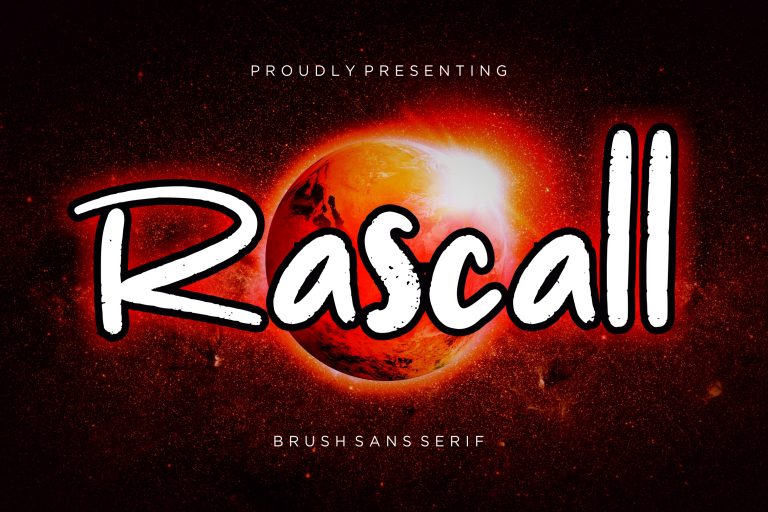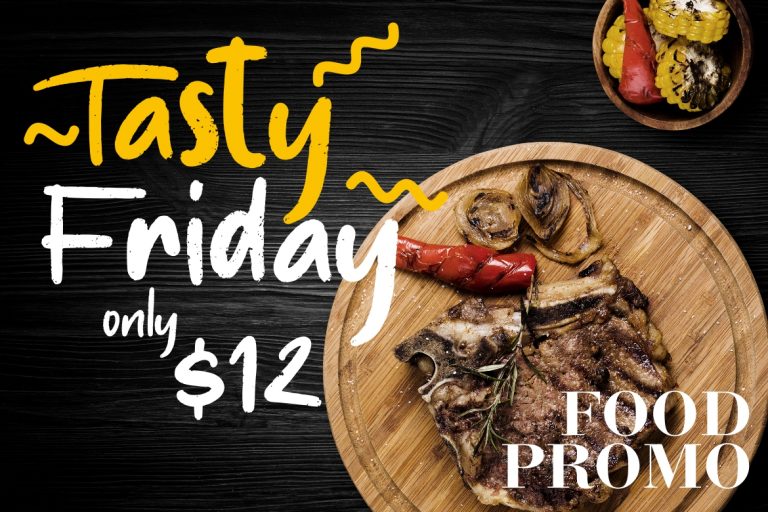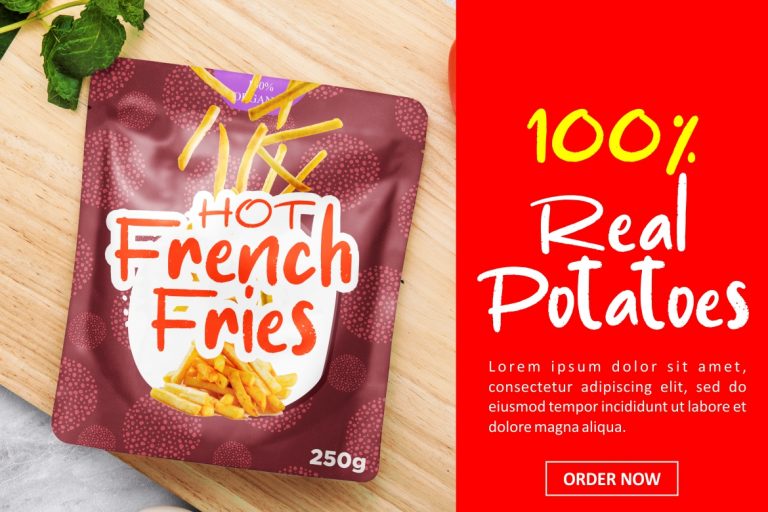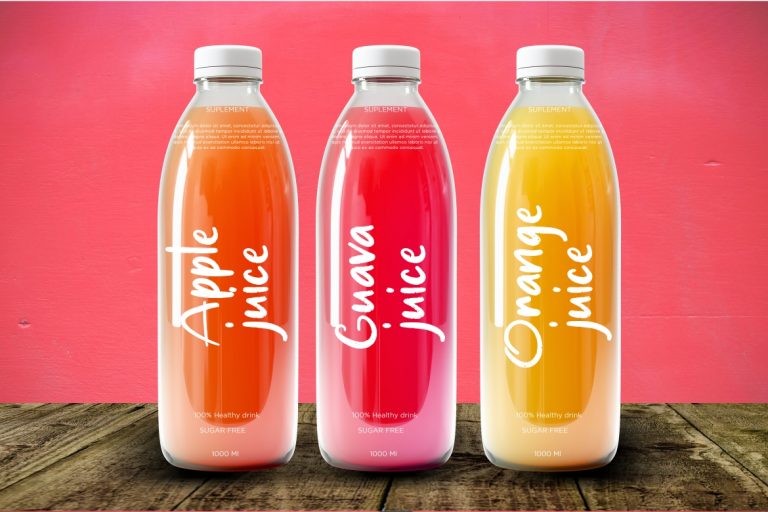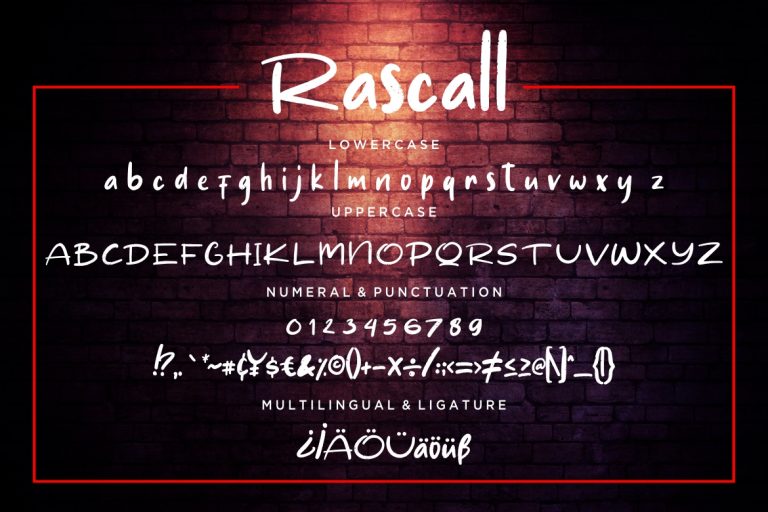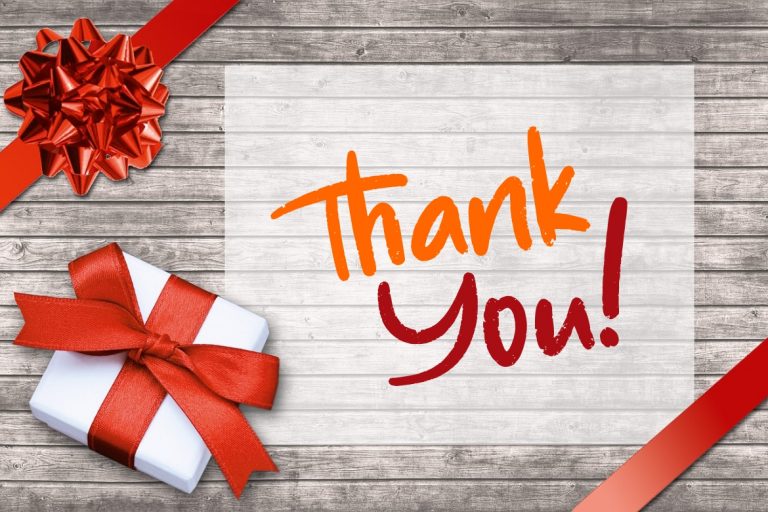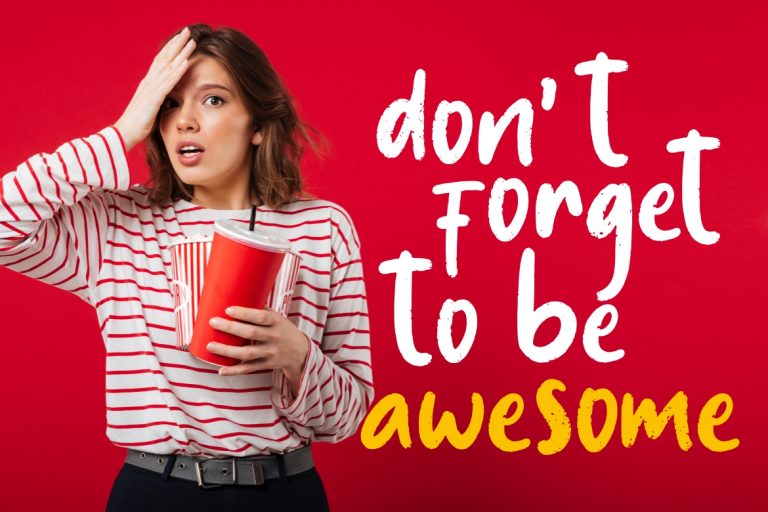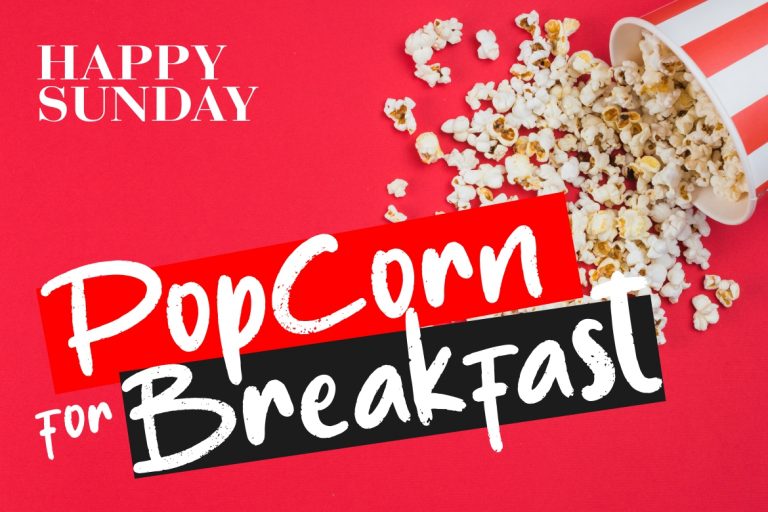
Rascall is hand brush display sans serif font with bold dan natural moves.
- Fonts include multilingual support for; ä ö ü Ä Ö Ü ß ¿ ¡
Rascall Brush Sans